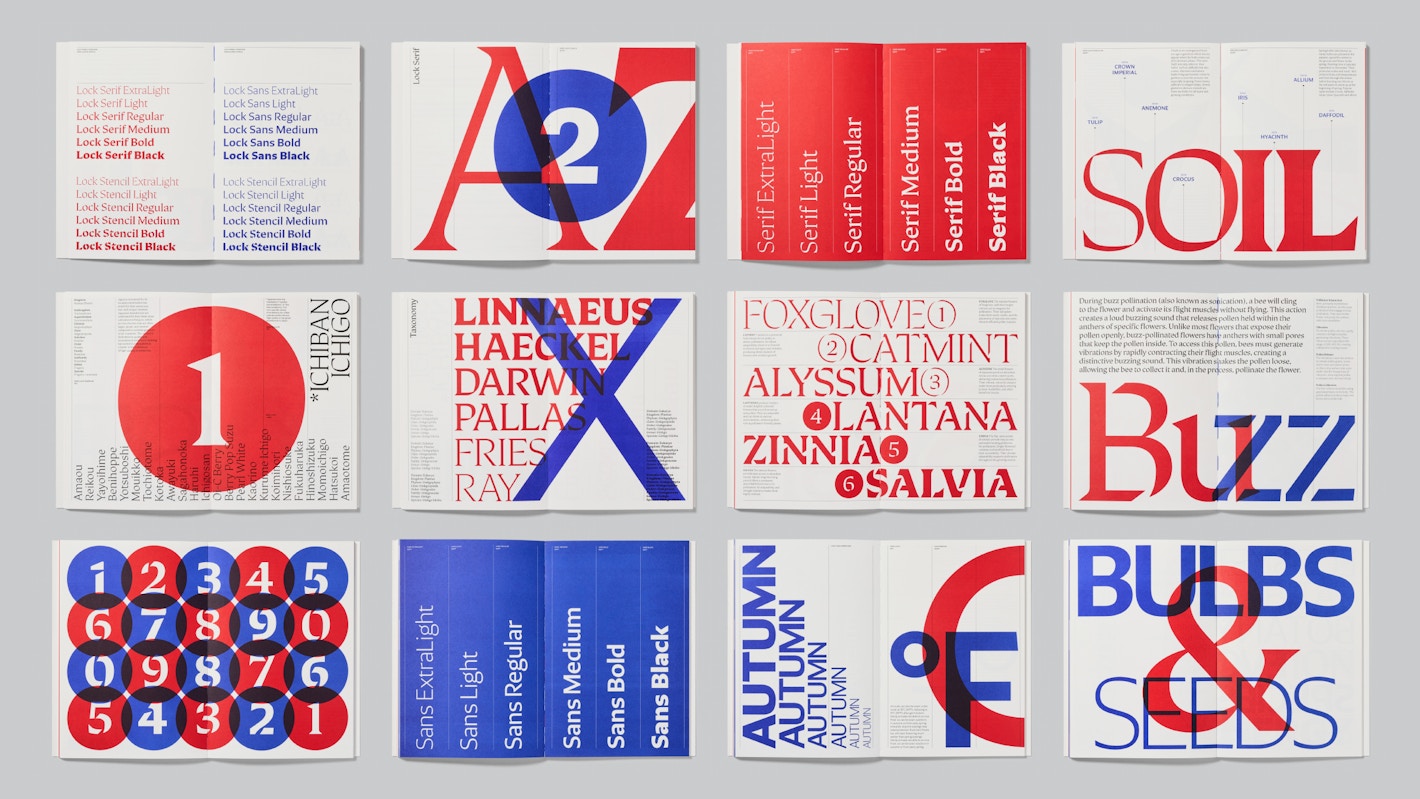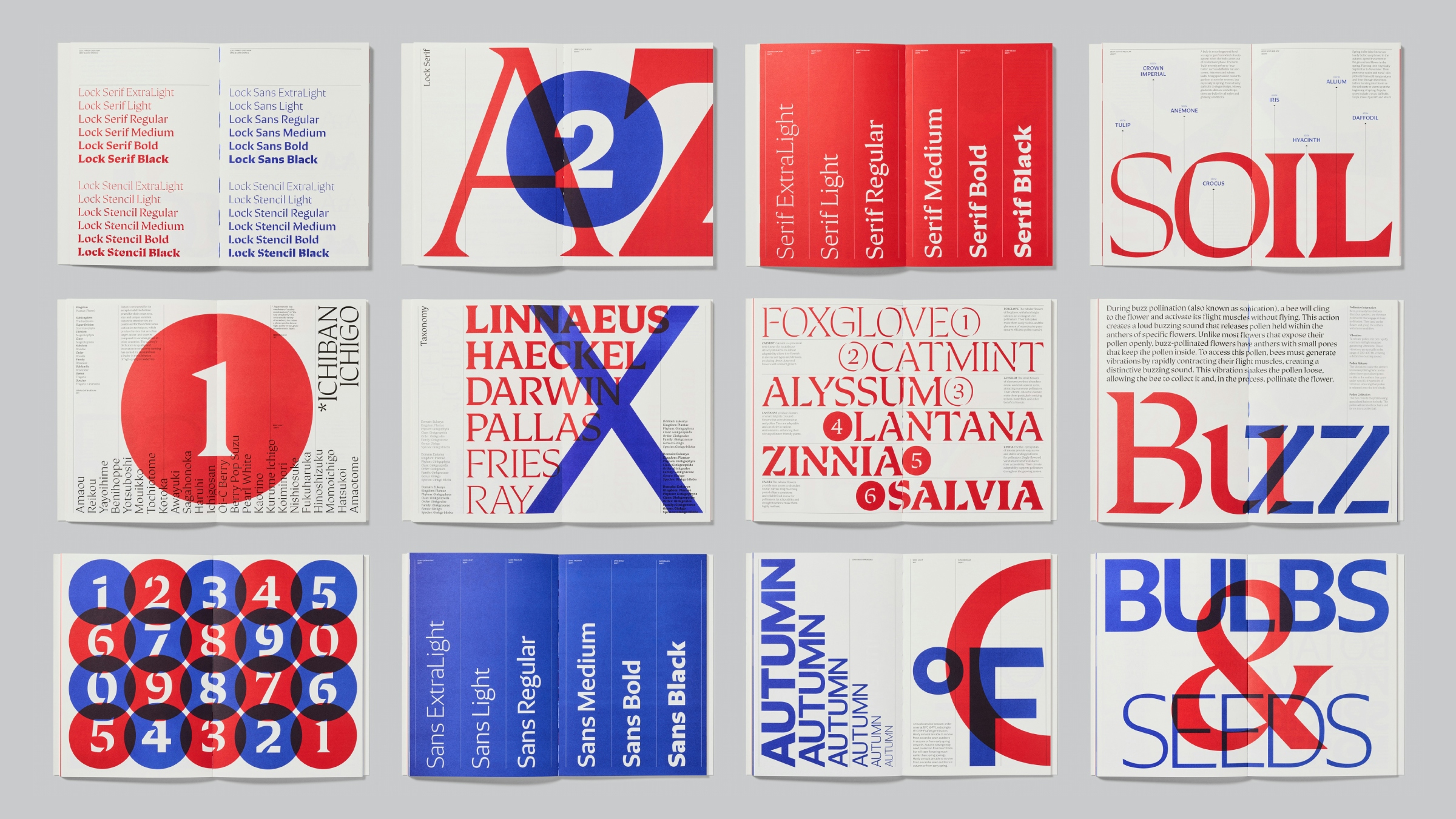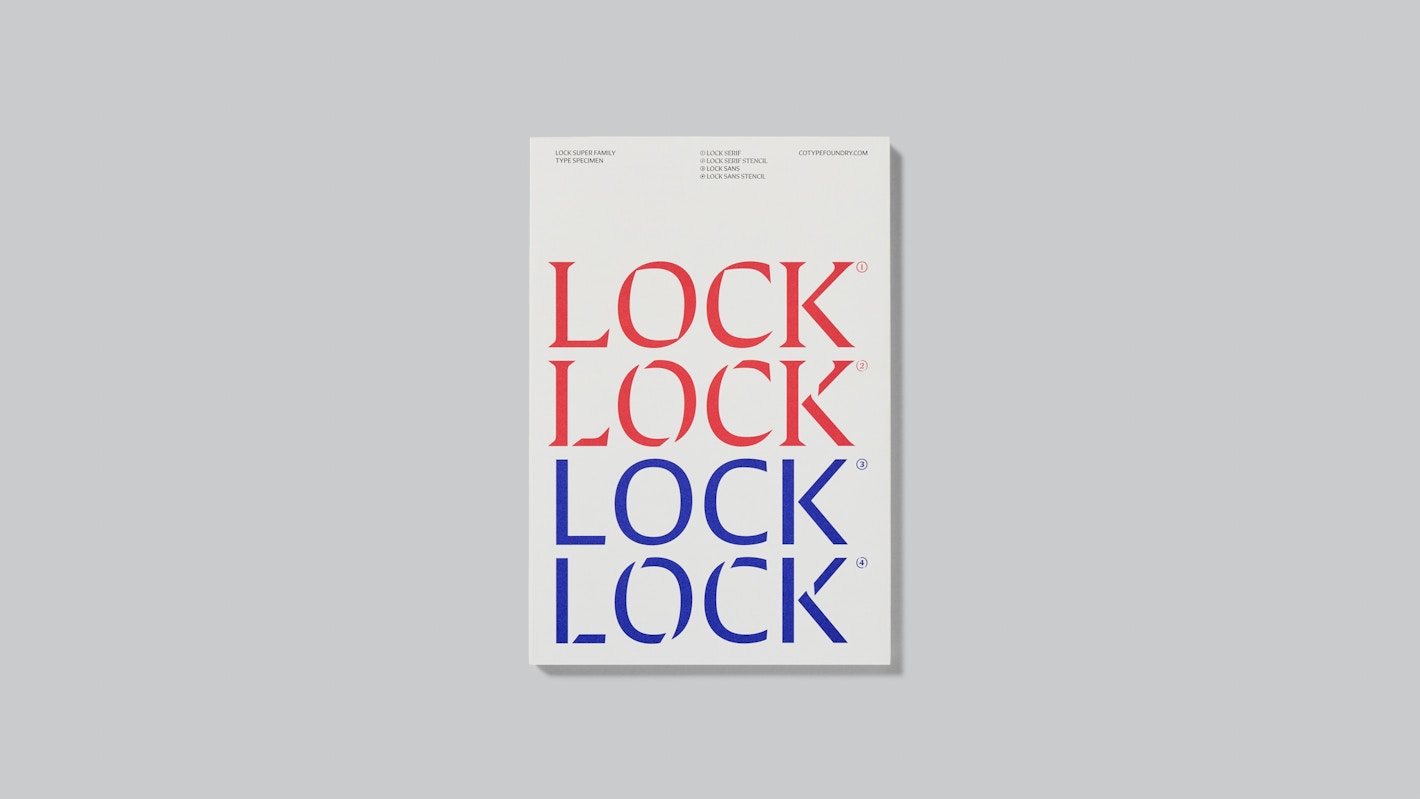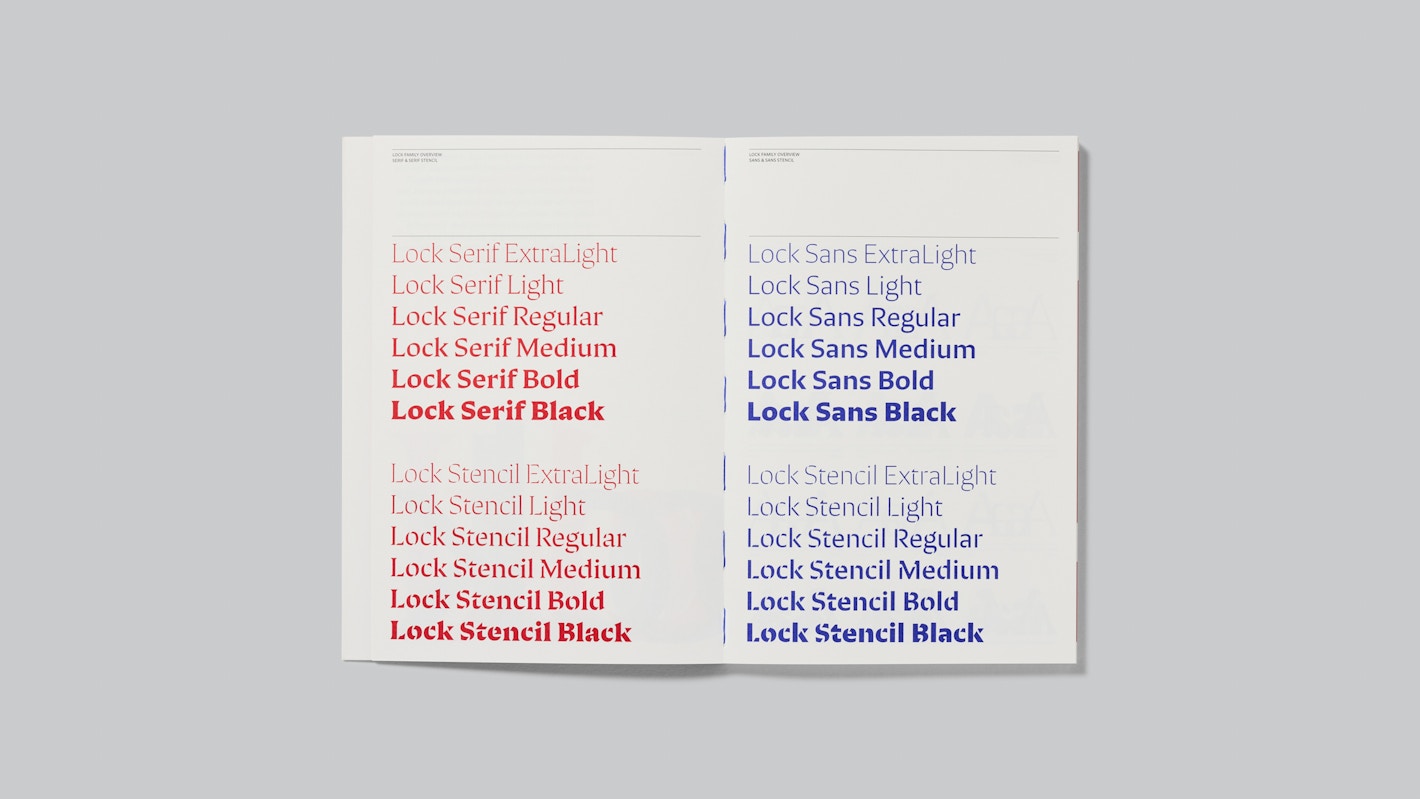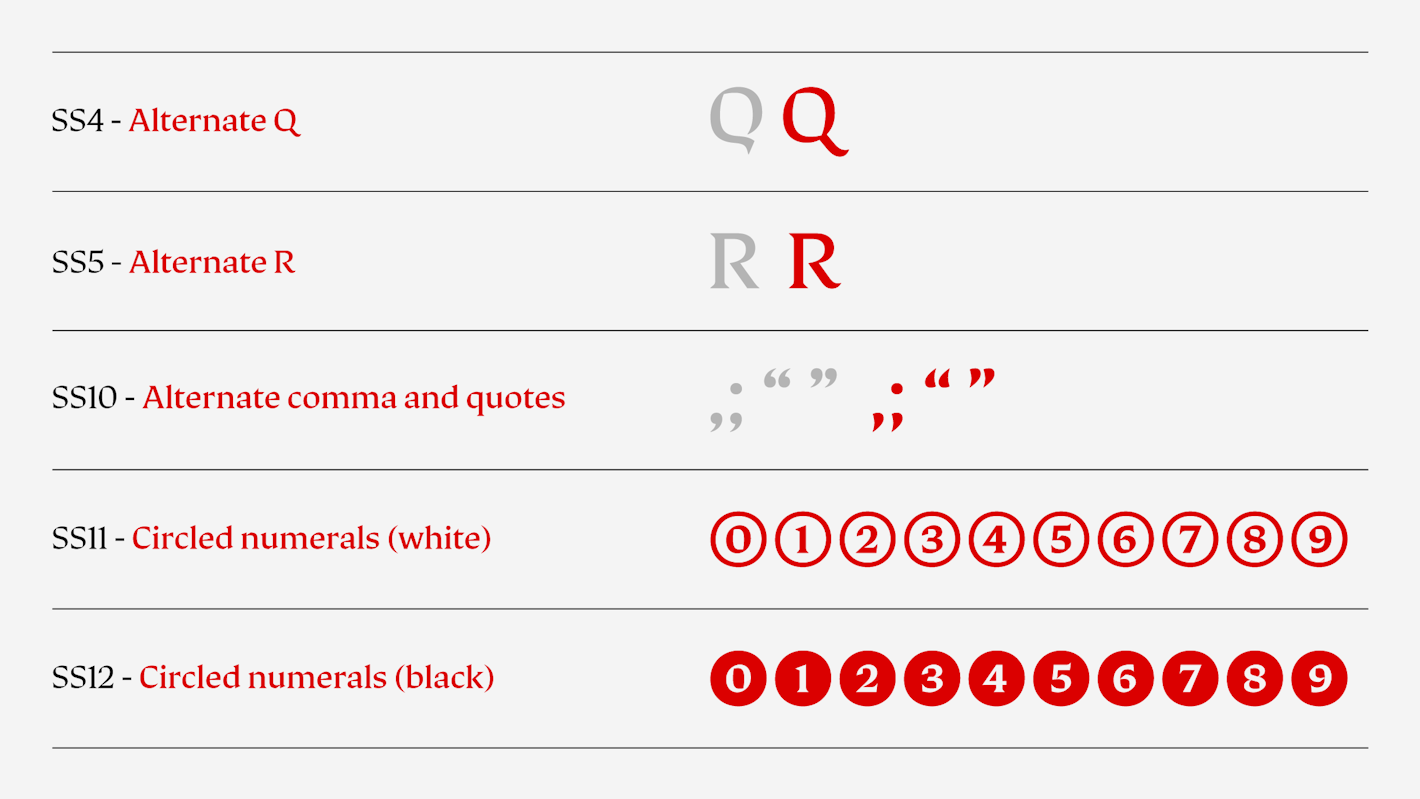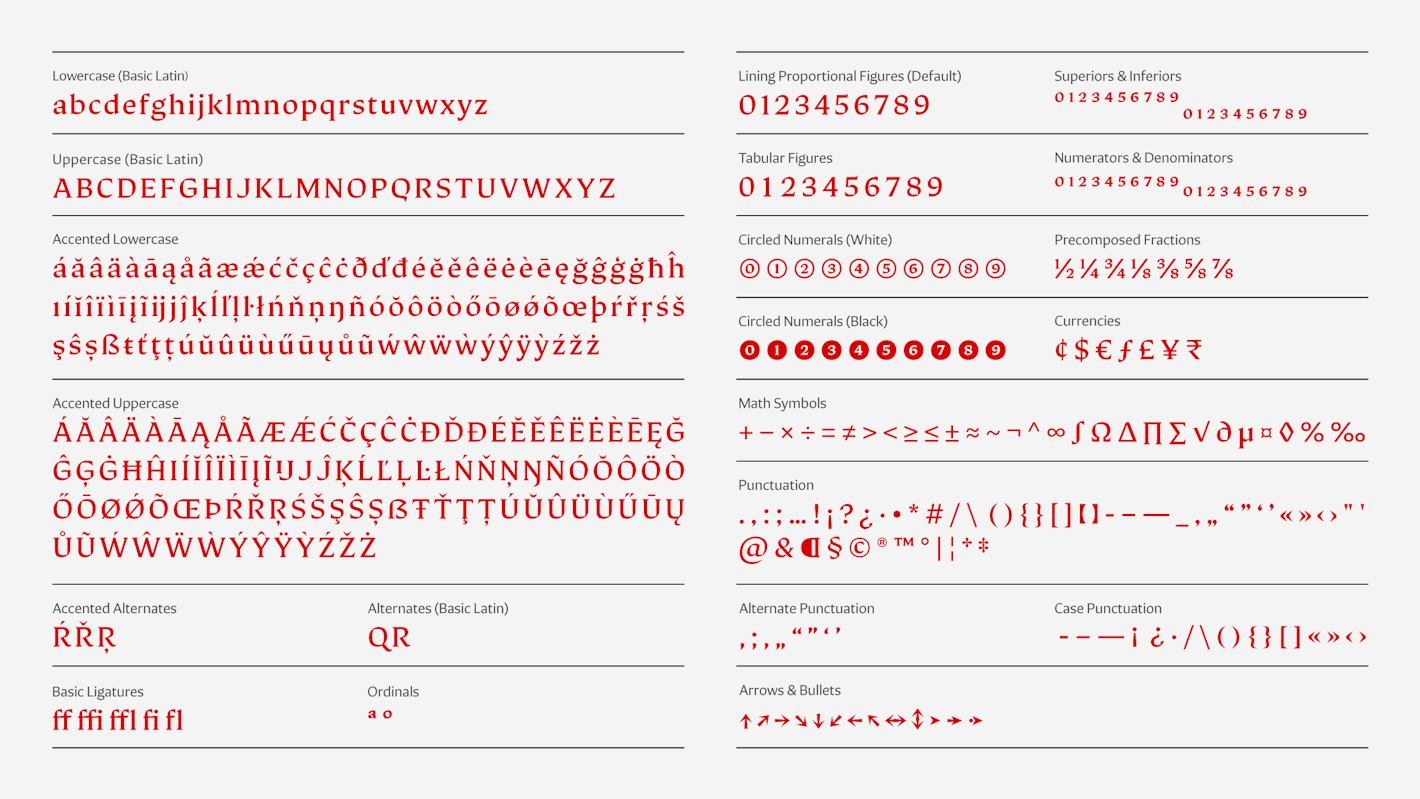
- Mark Bloom
- Diana Ovezea
Lock Serif brings the elegance of traditional calligraphy into a contemporary serif design. Its sharp, assertive shapes offer a bold contrast to smoother, calligraphic curves, making it ideal for editorial, branding, and display use.
Lock Serif is available in six weights – ranging from ExtraLight to Black – and is optimised for larger sizes but maintains readability in smaller text. It includes alternates for characters like ‘Q’ and ‘R,’ along with arrows, circled numbers, as well as alternate comma and quotes. The character set covers most Latin-based languages. Lock Serif can be seamlessly interchanged with Lock Serif Stencil without causing text to reflow, ensuring design flexibility.
Designed to make a strong impression, Lock Serif combines sharpness and grace, offering an elegant yet bold tone suitable for those seeking a unique blend of tradition and modern design.
Lock Serif is part of the larger Lock family – a collection designed by Mark Bloom and Diana Ovezea, which explores the balance between broad-nib calligraphy and industrial design. Lock is available in Sans and Serif variants, each with its playful stencil companion.